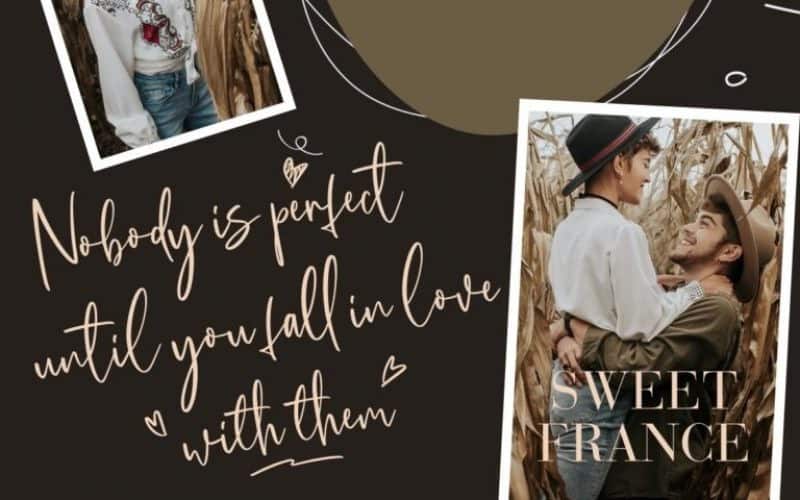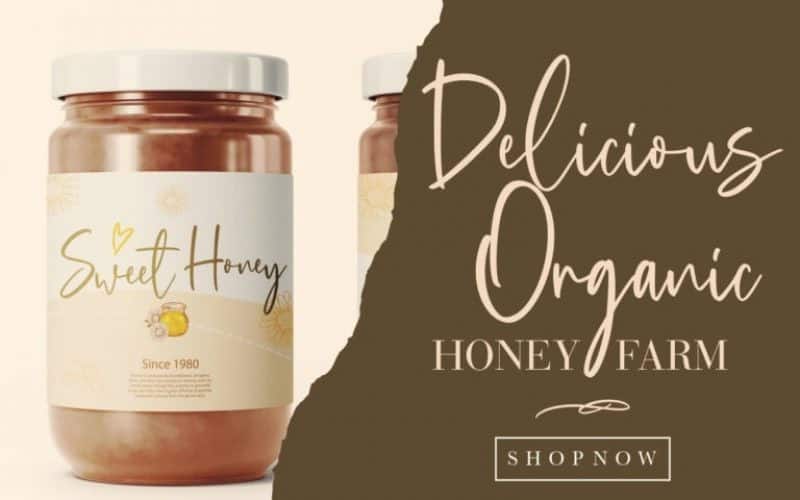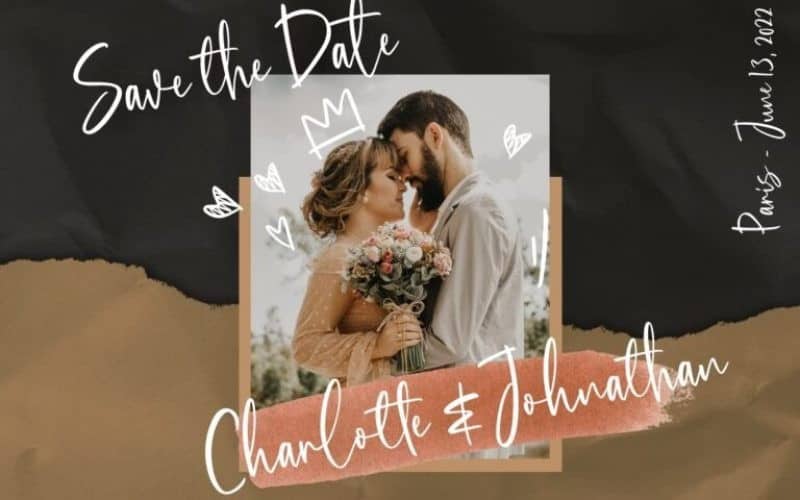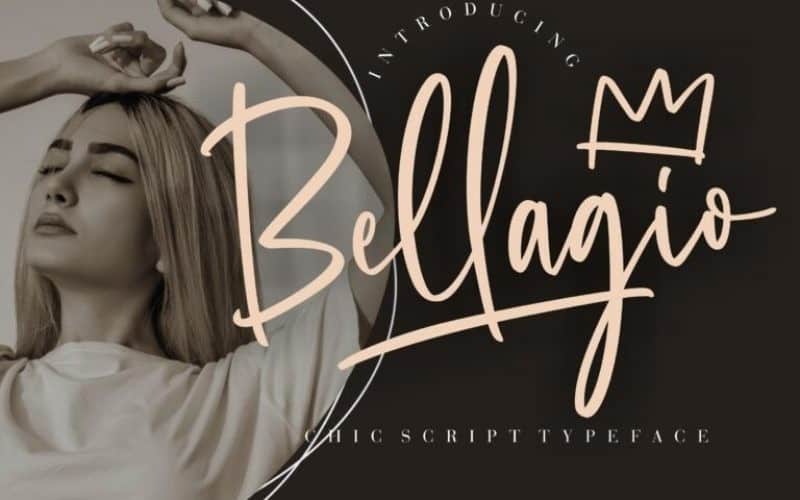
Bellagio Brush Font is a sweet, joyful, and versatile hand-drawn Typeface manufactured by Creatype Studio. Bellagio is perfect for branding projects, logo, wedding designs, social media posts, advertisements, product packaging, product designs, label, photography, watermark, invitation, stationery and any projects that need handwriting taste.